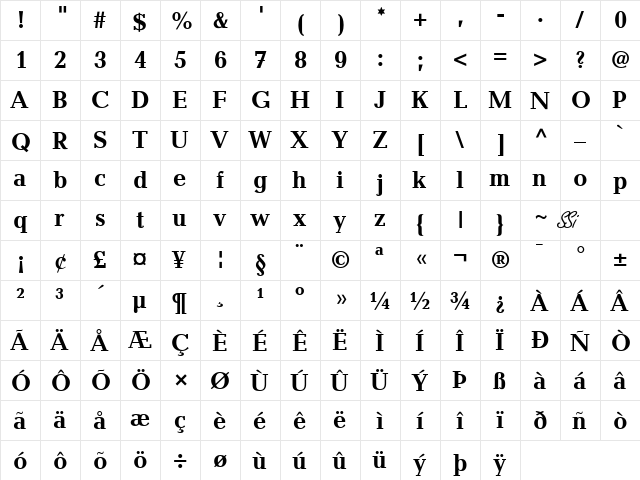
Matique SSi Bold Font Preview
Matique SSi Bold
Design Context for Matique SSi Typeface
Matique SSi is a composed and adaptable typeface that performs quietly and consistently across a wide range of design contexts. Its bold stroke weight gives it real presence on the page.